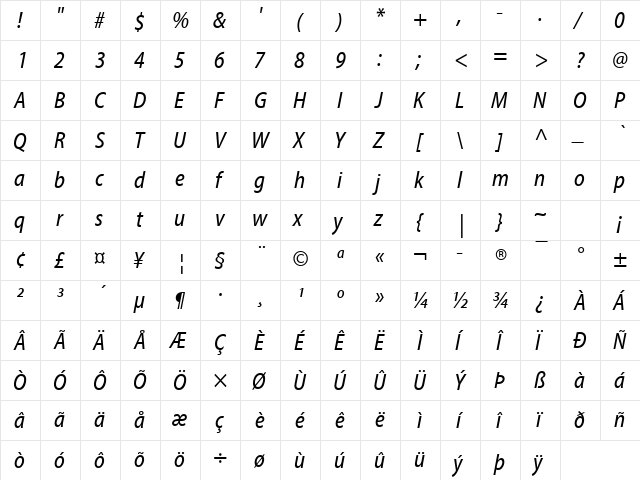
Myriad Condensed Web Italic
| Designer | Robert Slimbach and Carol Twombly |
Design Context for Myriad Condensed Web Typeface
Myriad Condensed Web is a composed and adaptable typeface that performs quietly and consistently across a wide range of design contexts. Its italic angle brings a sense of urgency and motion to the letterforms. The condensed width makes it efficient for tight spaces without sacrificing legibility.
Pro Tip: Use Myriad Condensed Web for emphasis, pull quotes, and subheadings where its slanted energy can add rhythm to the layout.